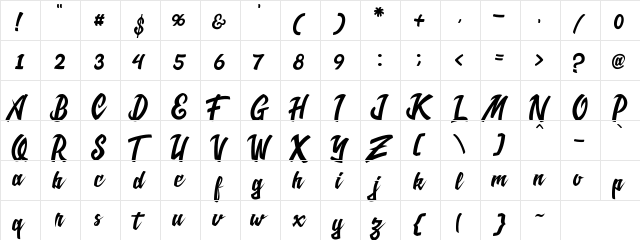
Cadass Demo Regular
Design Context for Cadass Demo Typeface
Cadass Demo is a composed and adaptable typeface that performs quietly and consistently across a wide range of design contexts.